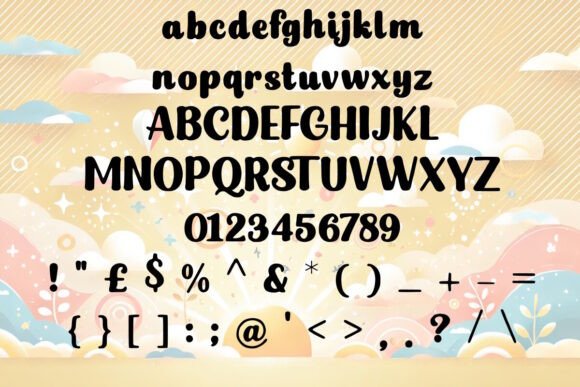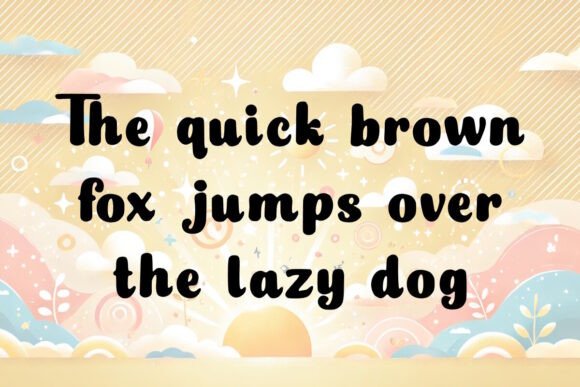
Introducing Best Day Ever Font: The Ultimate Mood-Booster for Designers and Crafters
Are you tired of using the same old fonts that lack personality and flair? Look no further than Best Day Ever Font, a soft, rounded, and delightfully cheerful typeface that’s sure to bring a smile to your face and a spring to your step. With its playful curves and slightly puffy letterforms, Best Day Ever Font radiates happiness and is the perfect addition to any design project that needs a boost of pure joy.
The Perfect Font for Spreading Smiles
Best Day Ever Font is more than just a font – it’s an experience. Imagine a font that feels like blue skies on a sunny day, warm hugs from a loved one, and a spontaneous adventure all rolled into one. That’s what you get with Best Day Ever Font. Its unique blend of playfulness and charm makes it the perfect choice for designers and crafters who want to create projects that spread happiness and positivity.
Whether you’re designing greeting cards, fun branding, or anything that needs a boost of pure joy, Best Day Ever Font is the perfect choice. Its versatility knows no bounds, and it’s suitable for a wide range of projects, including:
- Greeting cards: Create one-of-a-kind greeting cards for birthdays, holidays, and special occasions that will make the recipient feel loved and appreciated.
- Branding: Add a touch of whimsy and fun to your brand’s identity with Best Day Ever Font, perfect for companies that want to convey a sense of friendliness and approachability.
- Stationery: Design custom stationery, such as notebooks, journals, and planners, that are both functional and delightful.
- Crafting: Use Best Day Ever Font to create handmade crafts, such as scrapbook pages, DIY signs, and other paper crafts, that are sure to bring a smile to the maker’s and recipient’s face.
What Makes Best Day Ever Font So Special?
So, what sets Best Day Ever Font apart from other fonts? Here are just a few of its unique features:
- Soft and rounded letterforms: Best Day Ever Font features soft, rounded letterforms that are both gentle and inviting.
- Playful curves: The font’s playful curves add a touch of whimsy and fun to any design project.
- Slightly puffy letterforms: The font’s slightly puffy letterforms give it a delightful, bubbly feel that’s sure to bring a smile to your face.
- Highly legible: Despite its playful nature, Best Day Ever Font is highly legible, making it perfect for use in a wide range of design projects.
Get Ready to Spread Joy with Best Day Ever Font
In conclusion, Best Day Ever Font is a game-changer for designers and crafters who want to add a touch of happiness and whimsy to their projects. With its soft, rounded letterforms, playful curves, and slightly puffy letterforms, this font is sure to bring a smile to your face and a spring to your step. Whether you’re designing greeting cards, fun branding, or anything that needs a boost of pure joy, Best Day Ever Font is the perfect choice. So what are you waiting for? Download Best Day Ever Font today and start spreading joy and positivity to everyone who sees your designs!